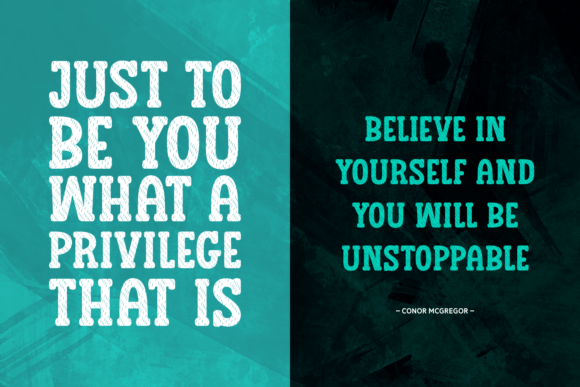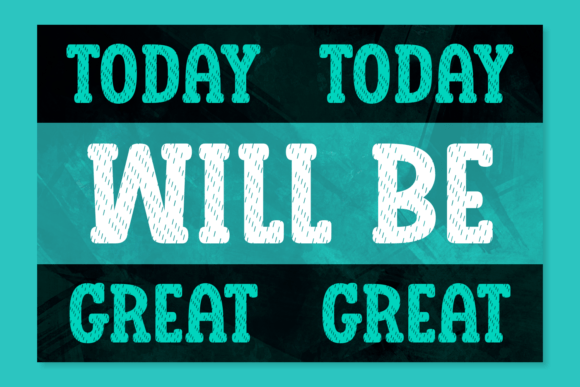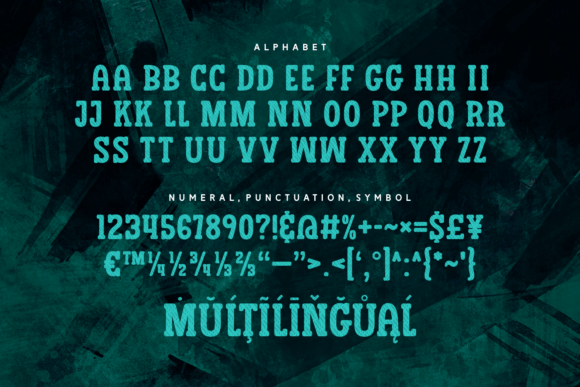
Changing Years Font
Changing Years is a stylish and rich slab serif font with letters that seem to dance and twist harmoniously together to form unique and elegant typography designs. Add it confidently to your projects and you will love the results!